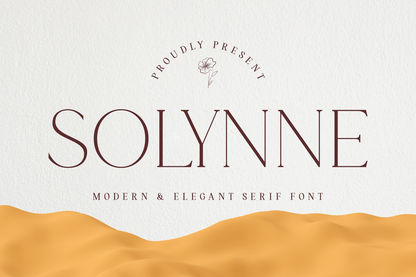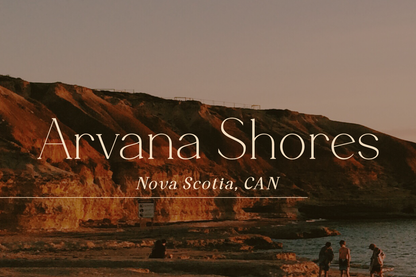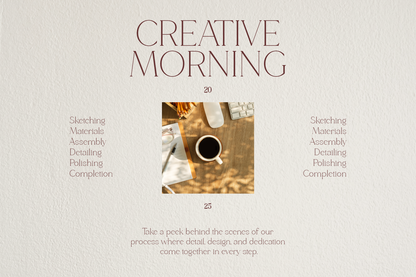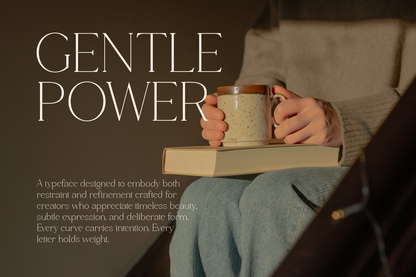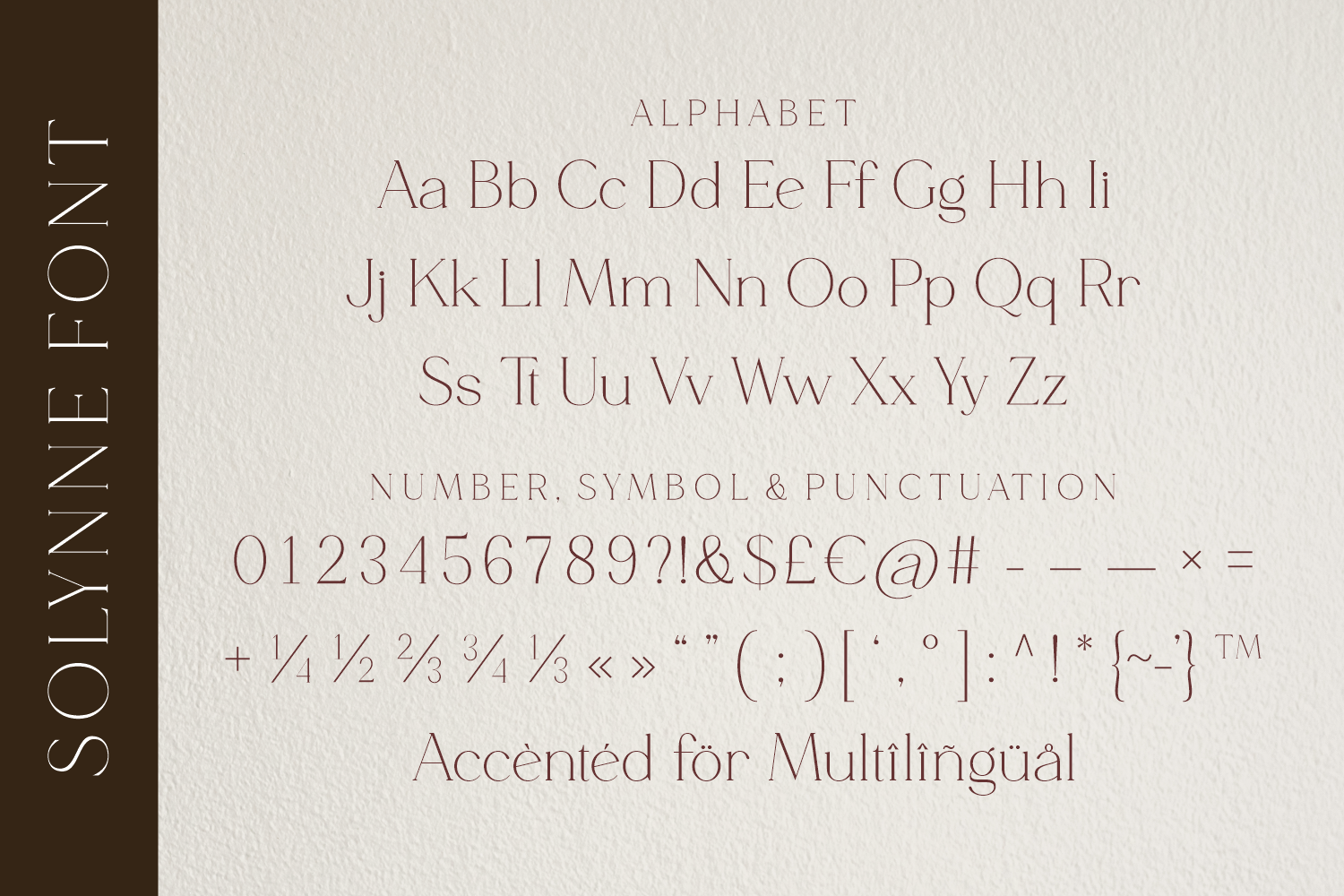
Solynne is a refined modern serif font that radiates elegance and quiet luxury. With its delicate curves, crisp serifs, and generous spacing, Solynne brings a timeless sophistication to your designs.